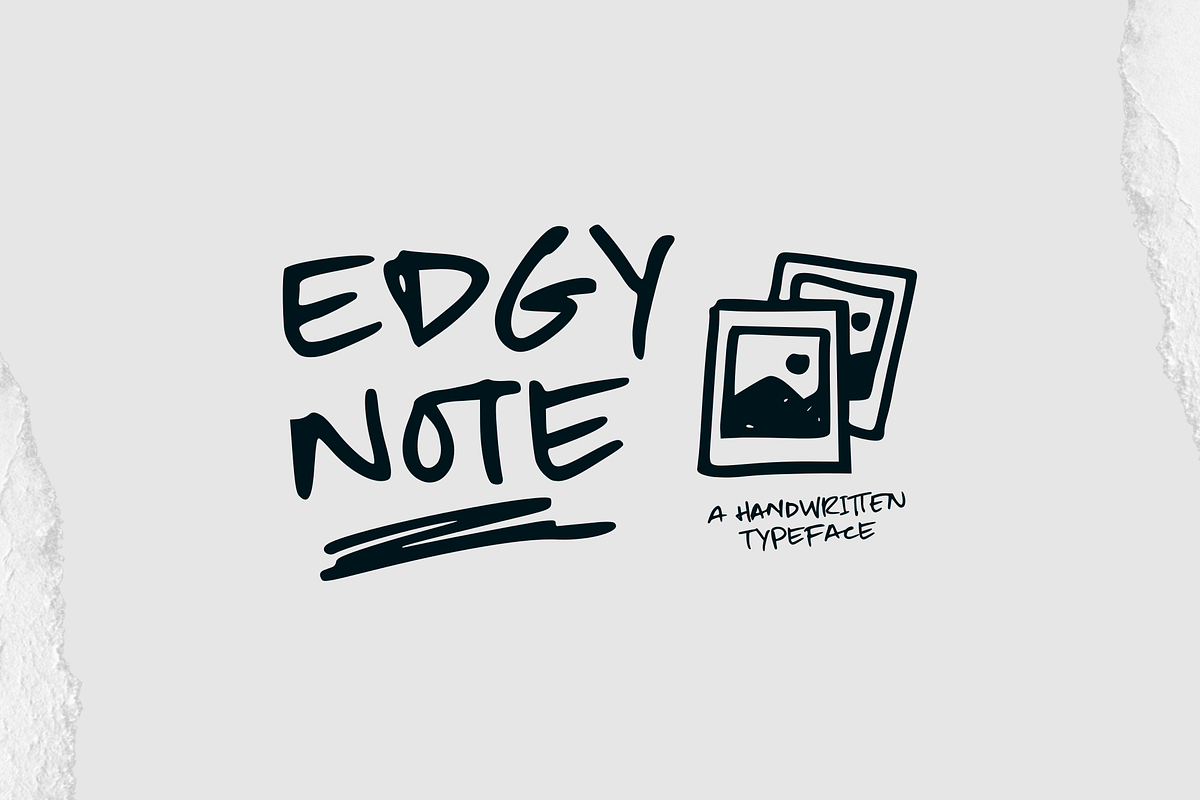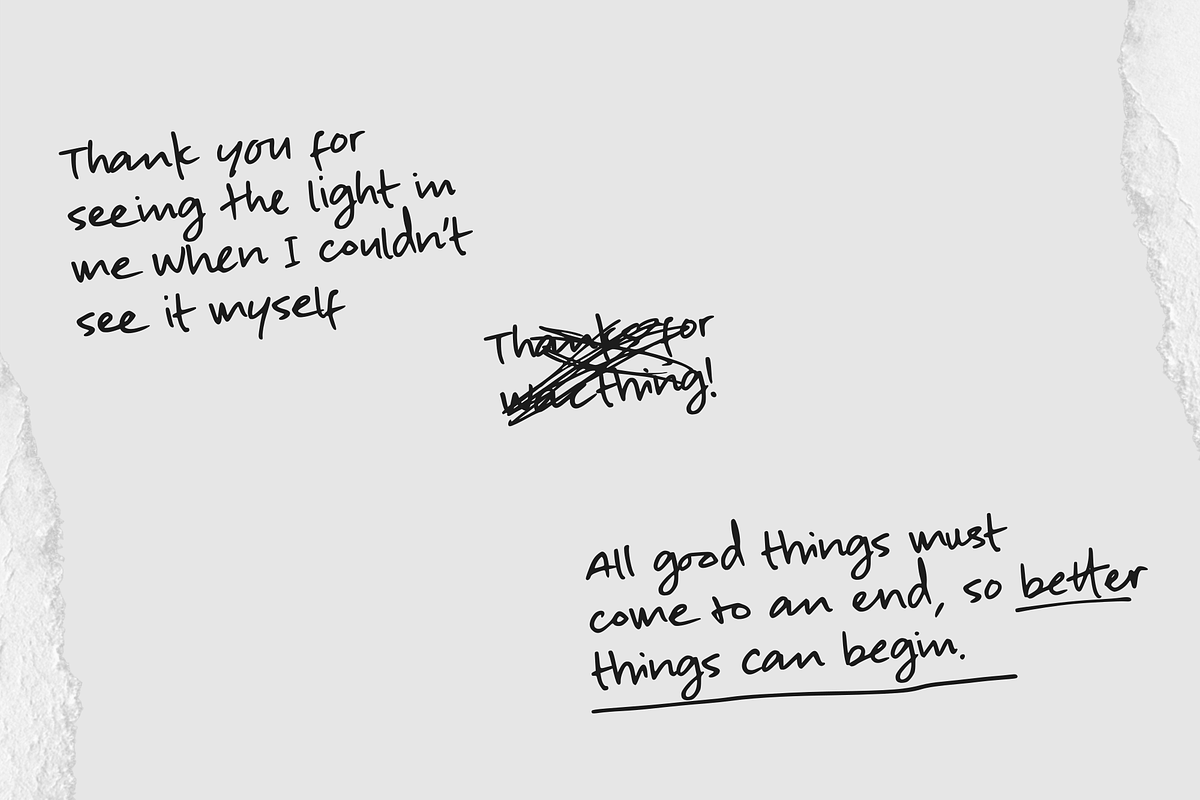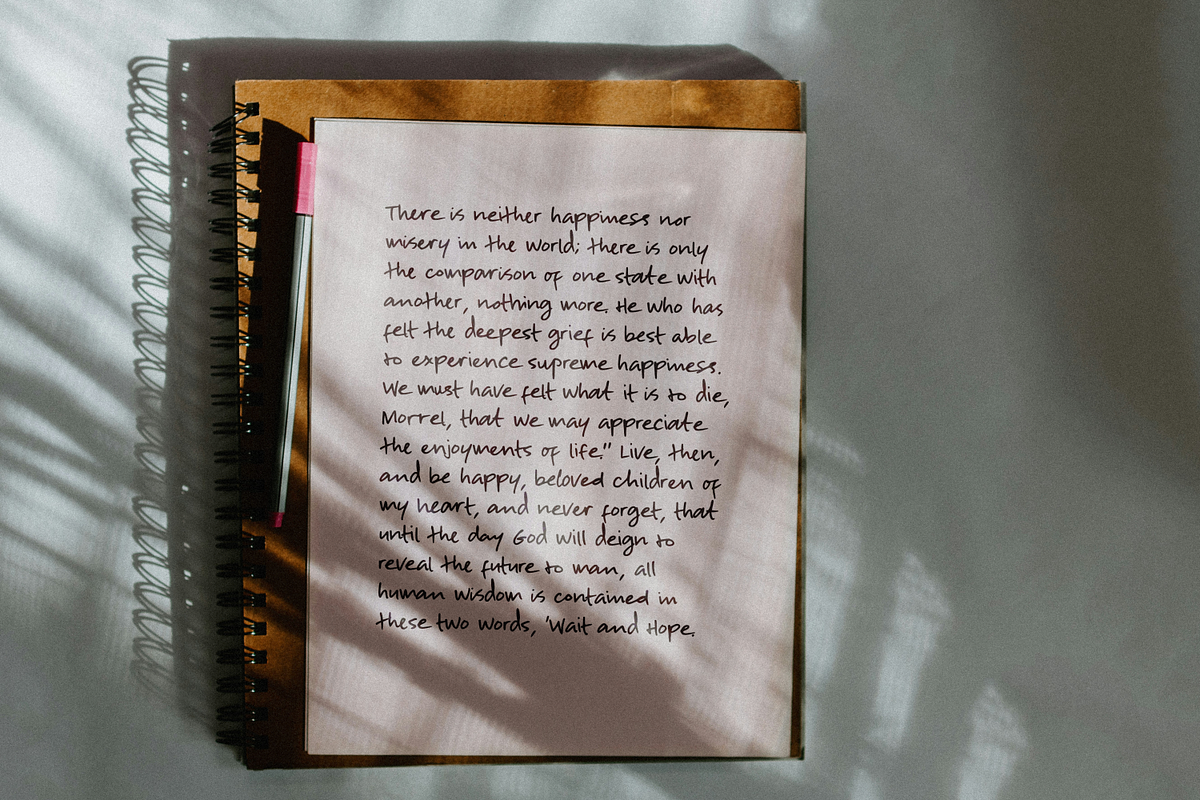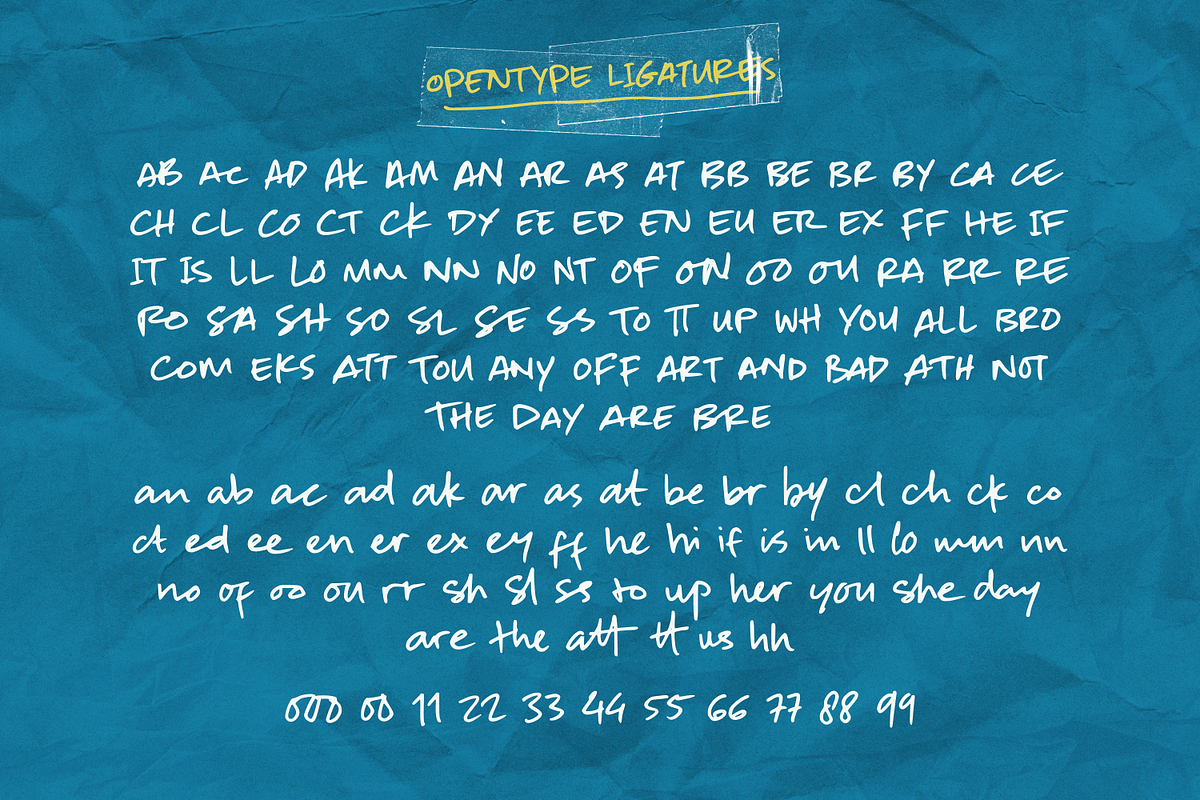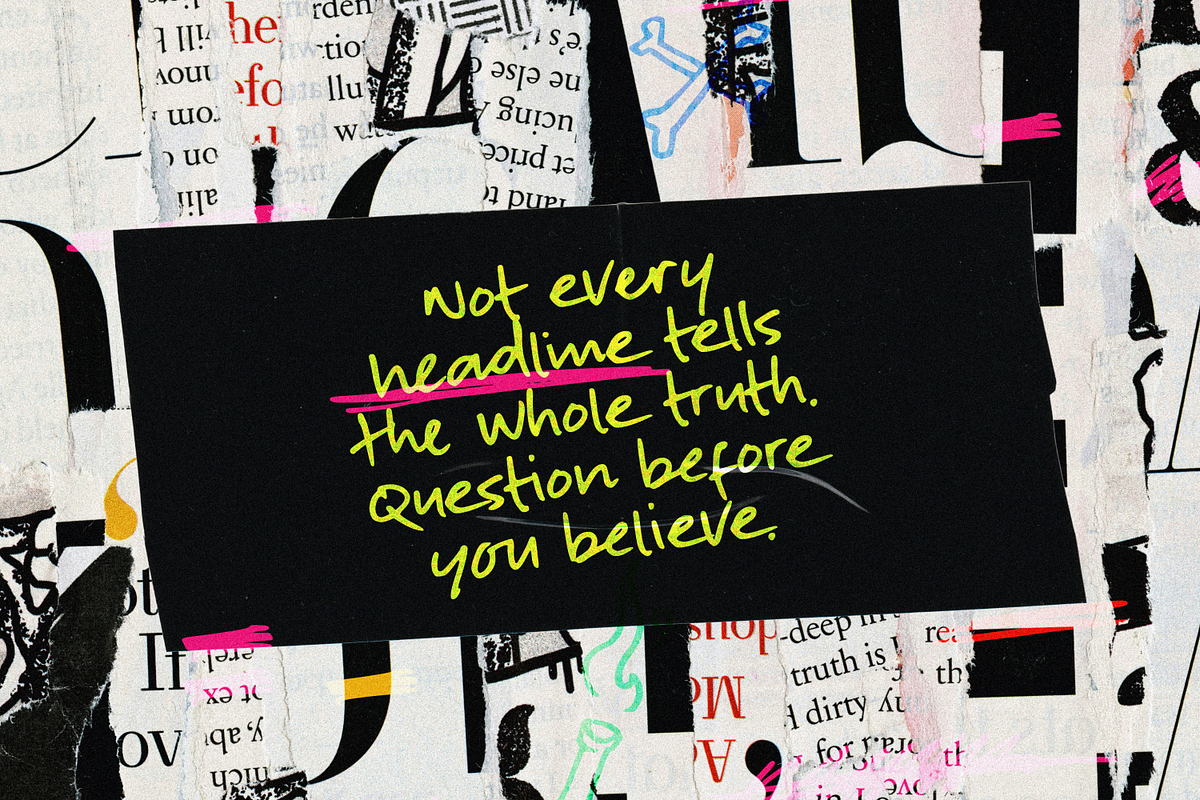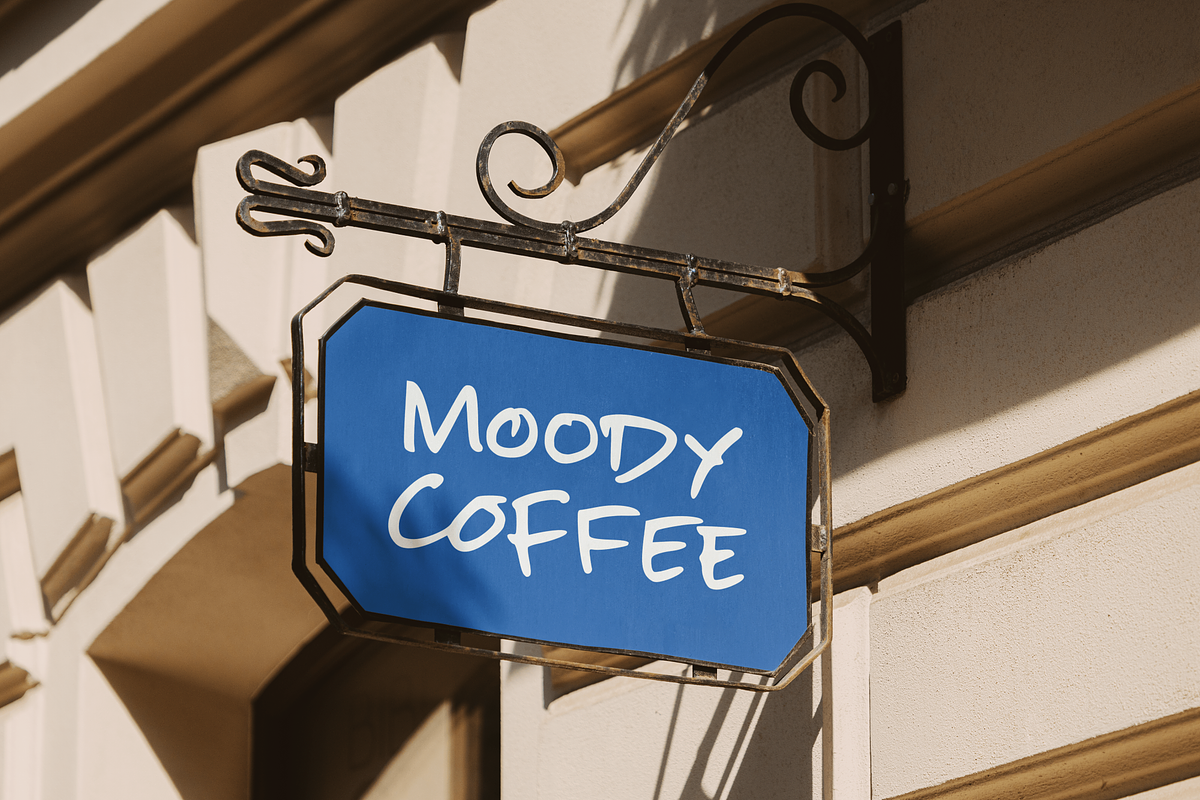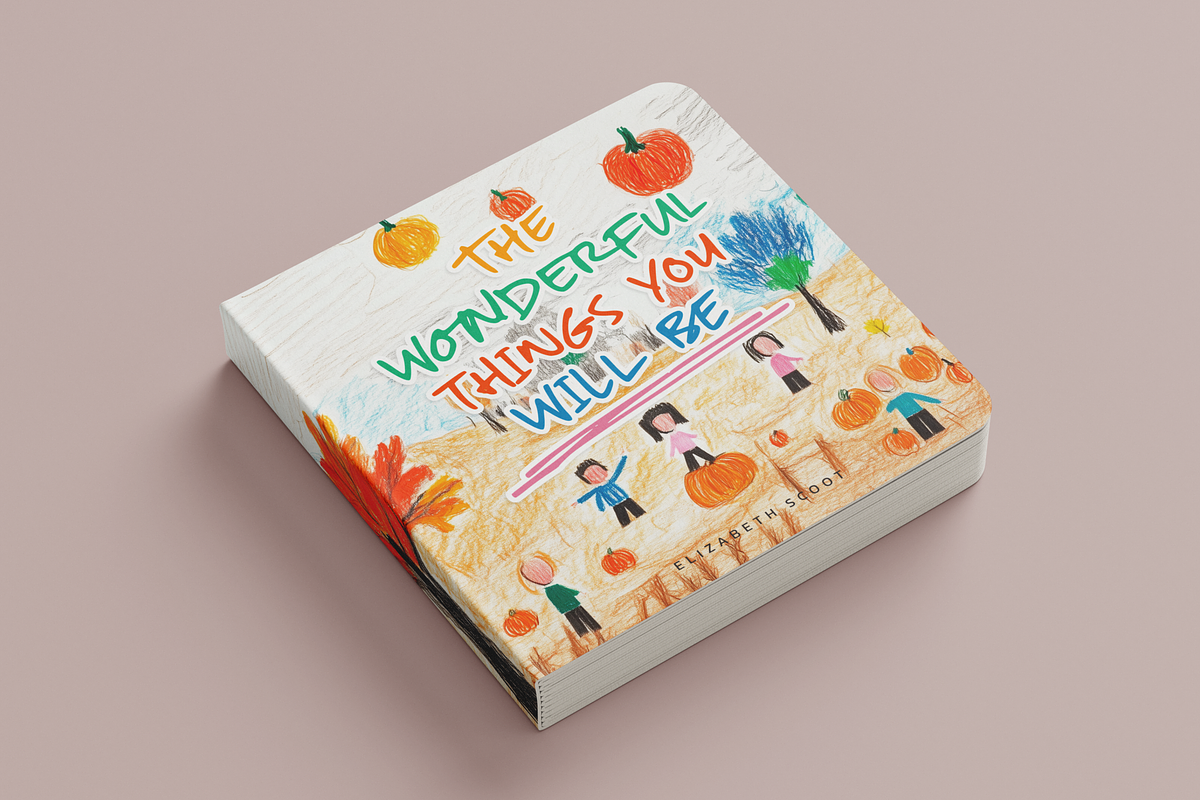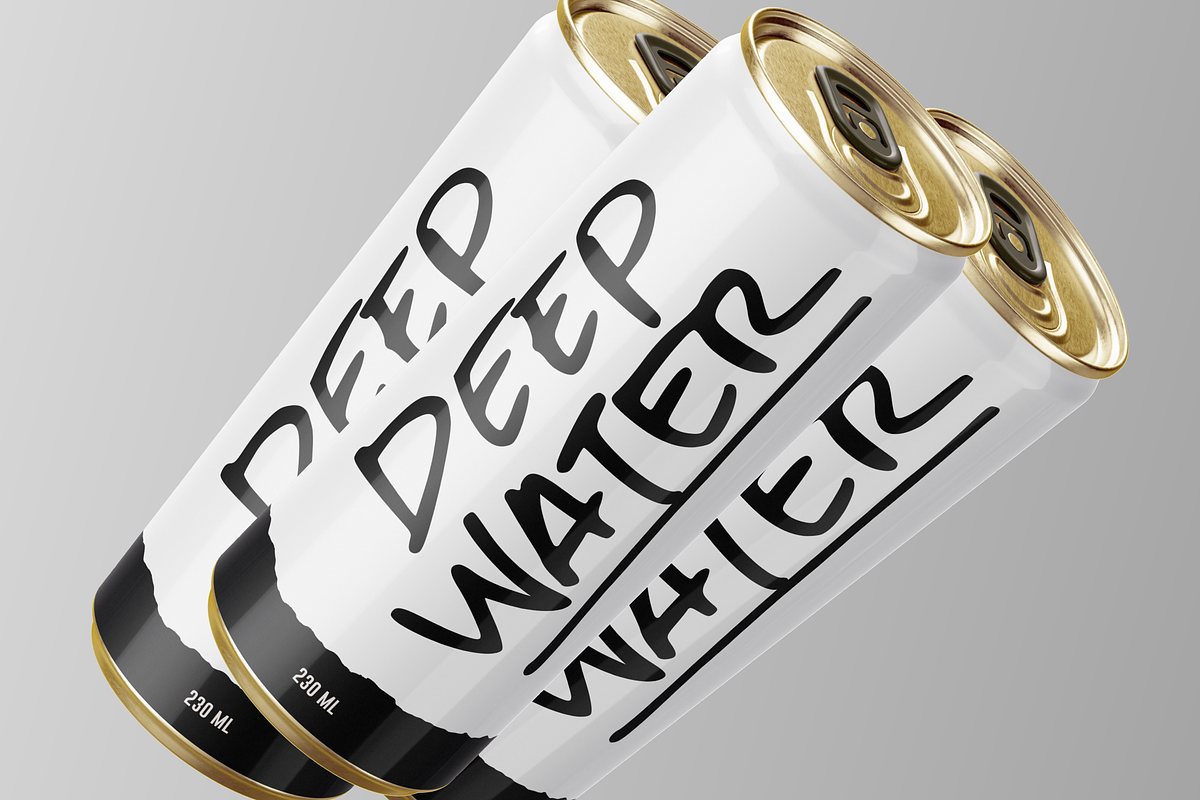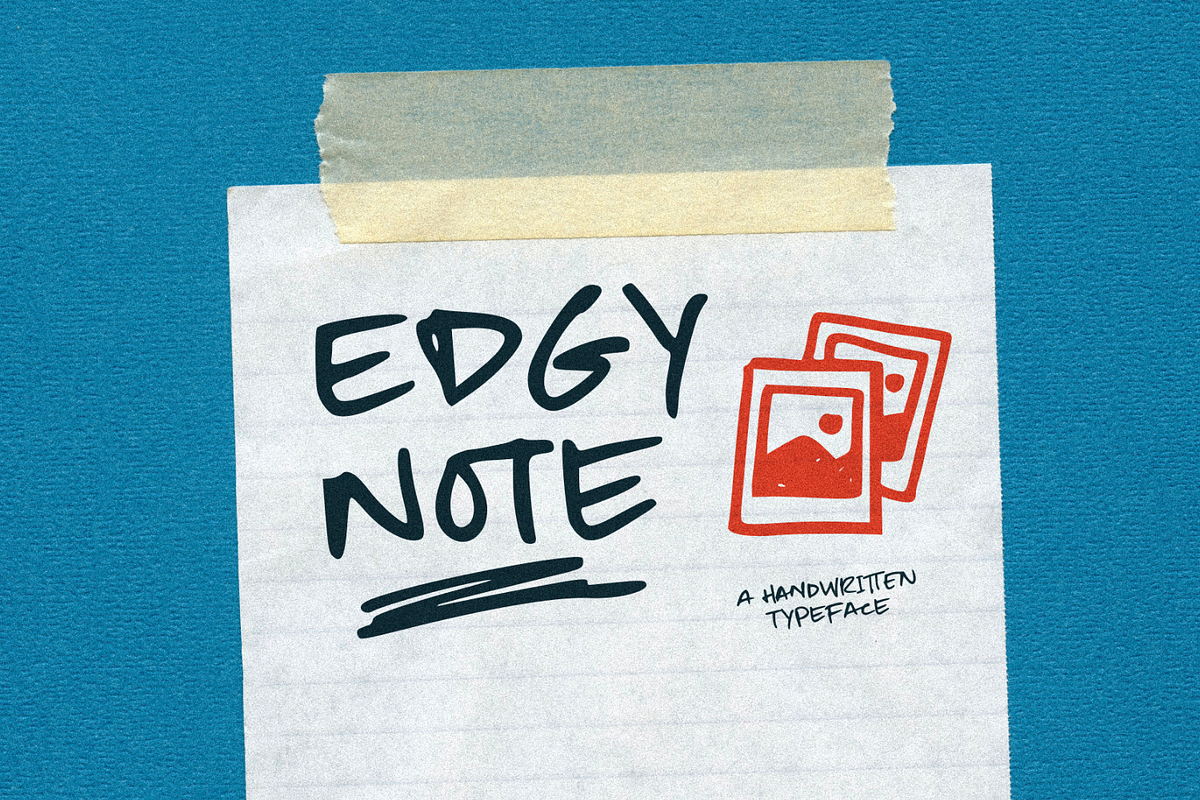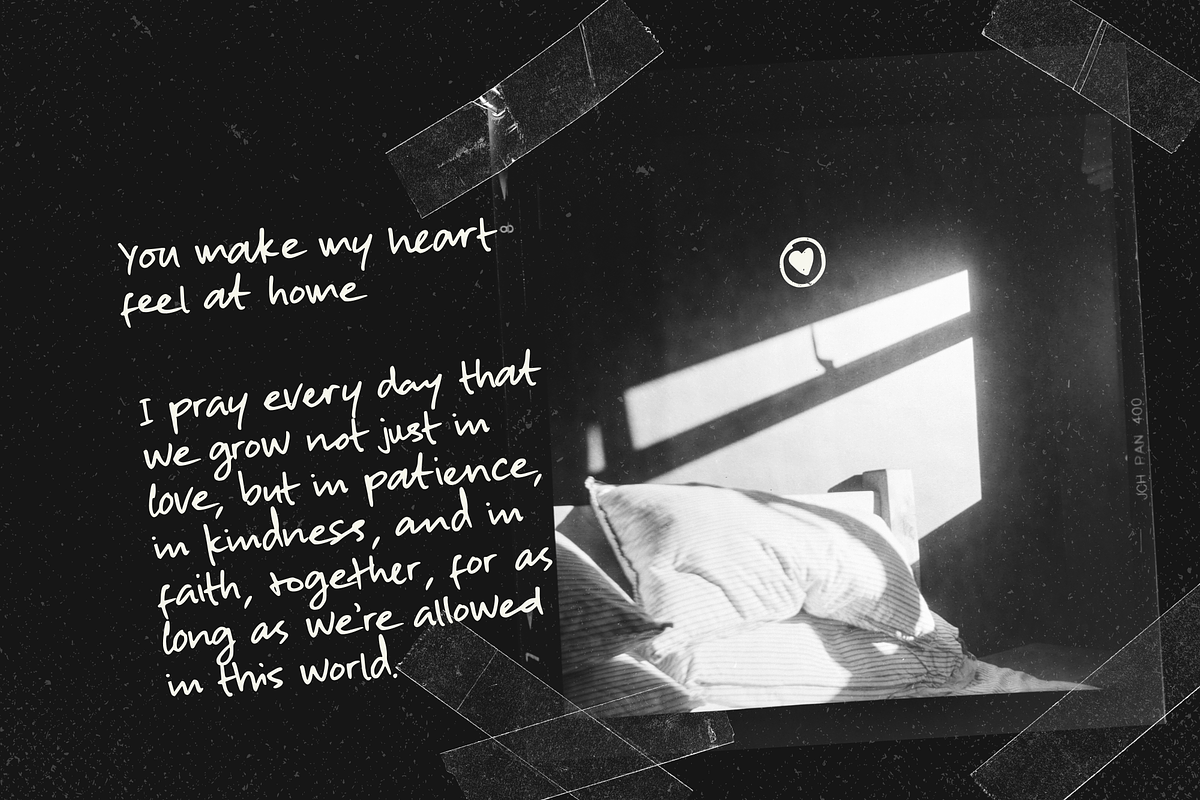
Edgy Note
Say hello to Edgy Note – a relaxed and natural-looking handwritten font featuring uppercase letters, lowercase letters, doodles, and sketchy lines.
Designed to feel effortless and authentic, it comes packed with OpenType ligatures and stylistic alternates to make your text look more like real handwriting and less like a standard font.
Edgy Note is perfect for unforgettable moments – whether you're creating personal notes, greeting cards, or any design that calls for a fun and personal touch.